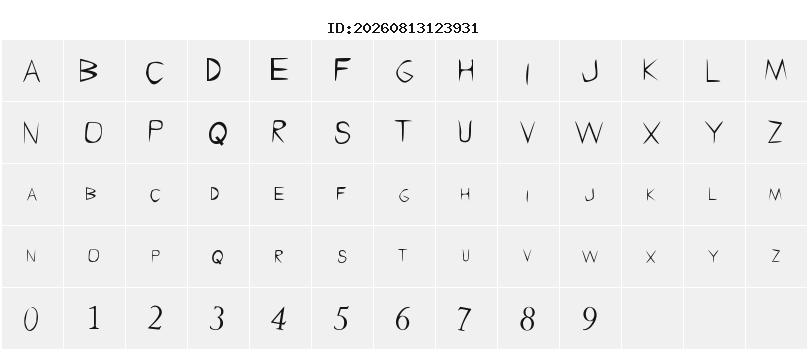
Recycled Bit Preview
• Font Name: Recycled Bit
• Font ID: Recycled Bit:Version 1.00
• Full Font Name: Recycled Bit
• Version: Version 1.00 - November 17, 2011, Initial release
• PostScript Name: Recycled Bit
• Character Count: 101
• Designer: 41t3c4n070gY™
• Manufacturer: 41t3c4n070gY™
About Recycled Bit.ttf
Recycled Bit.ttf is a modern, elegant sans-serif font designed for ultimate readability and visual harmony. Perfect for branding, headlines, web design, and print materials.